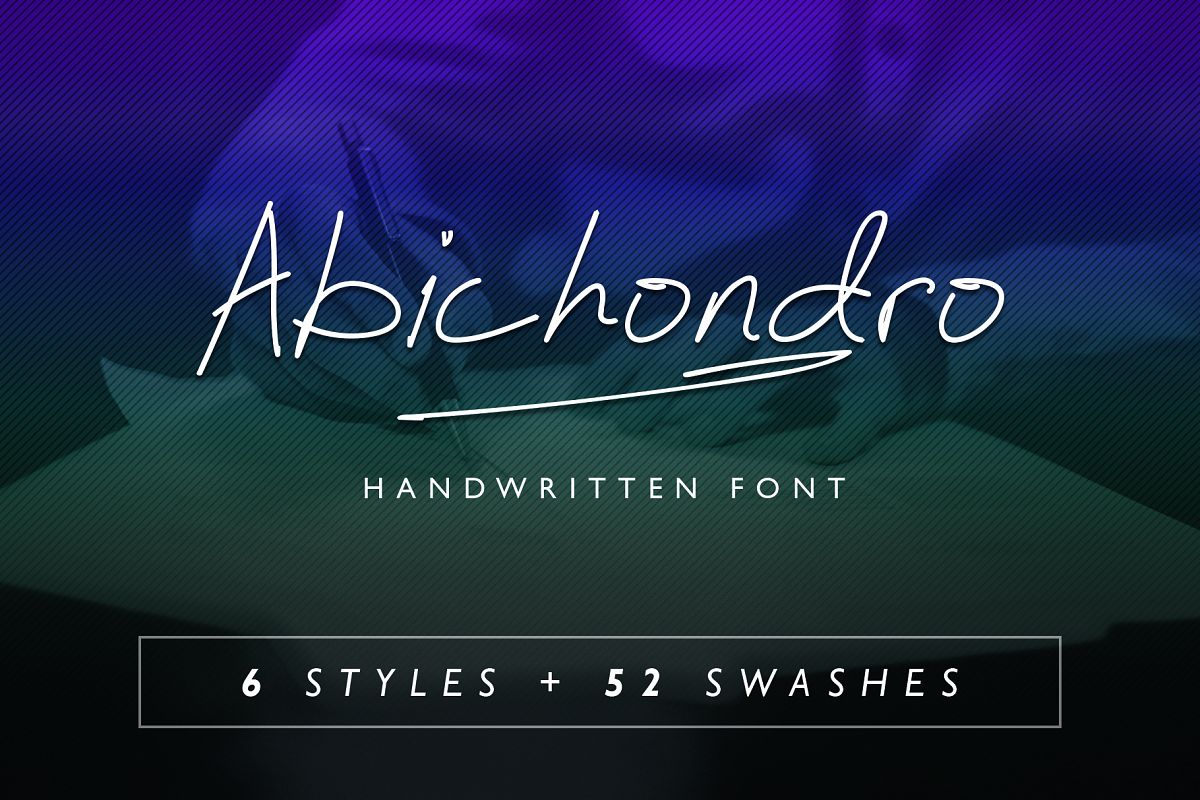
Abichondro Script is a natural signature style font with 6 font style options and 52 swashes. It’s many swash options add beauty to this font.Abichondro Script is suitable for boutique brands, photography, magazines, quotes, business cards, logos, posters and much more.